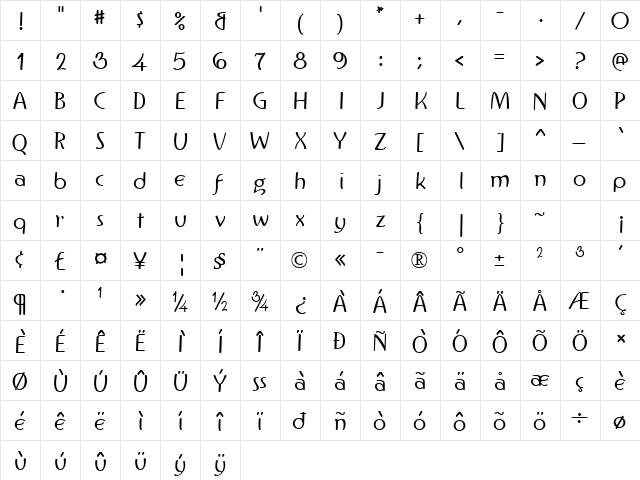
IngrianaCasual Regular Font Preview
IngrianaCasual Regular
IngrianaCasual Regular Font Details
Design Context for IngrianaCasual Typeface
IngrianaCasual takes a measured approach to typography — its balanced proportions and neutral character make it a reliable workhorse for both digital and print work.